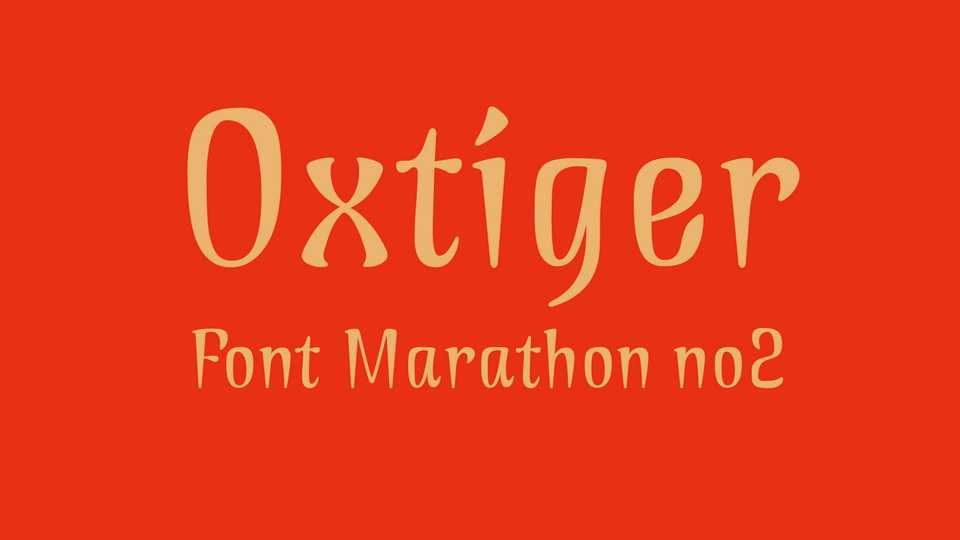
Download Oxtiger font, a sharp and skewed display typeface. Expertly designed to make your creation look out of this world, Oxtiger font will add a trendy and cool touch to each of your artworks.
Designer: Tzu-yuan Yin